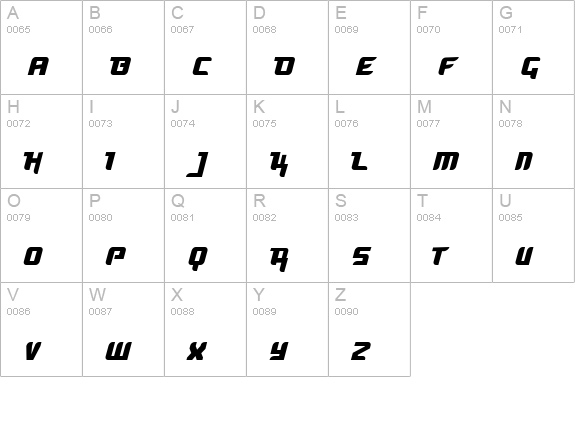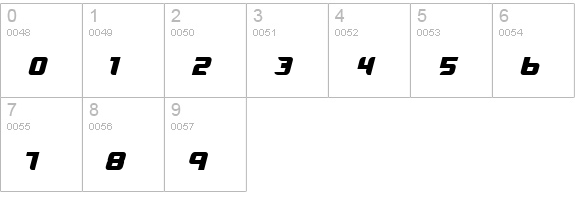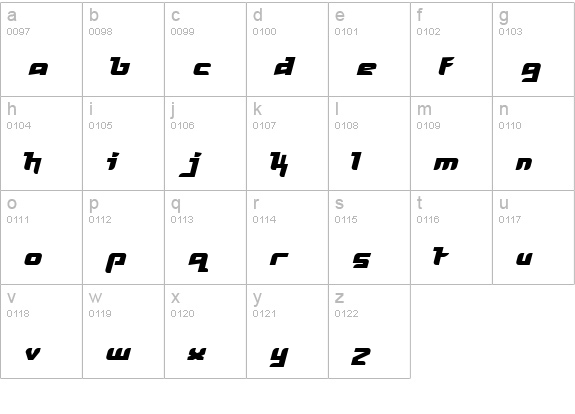
Freya Font Details
Freya font is a modern and stylish typeface that exudes elegance and sophistication. With its clean lines and unique letterforms, Freya is perfect for a wide range of design projects, from branding to editorial design. This versatile font strikes the perfect balance between classic and contemporary, making it a popular choice for designers looking to add a touch of sophistication to their work. What sets Freya font apart is that it is available for free download at FontsMarket.com. This means that you can easily access this stunning font without any cost, making it a valuable addition to your font library. Whether you're working on a personal project or a client commission, Freya font will elevate your designs and help you stand out from the crowd. Download Freya font today from FontsMarket.com and unlock a world of creative possibilities with this beautiful typeface.